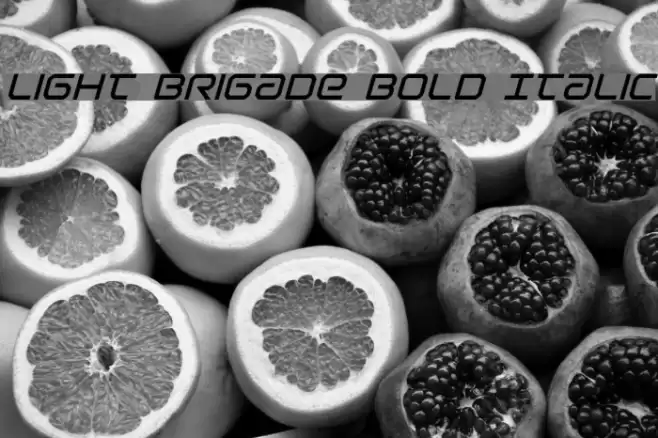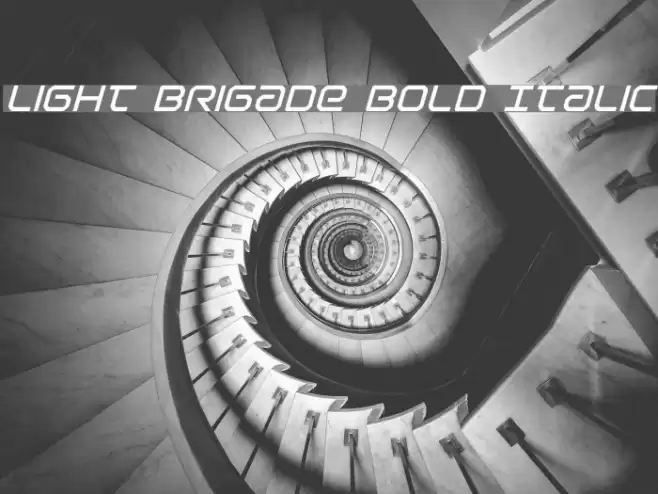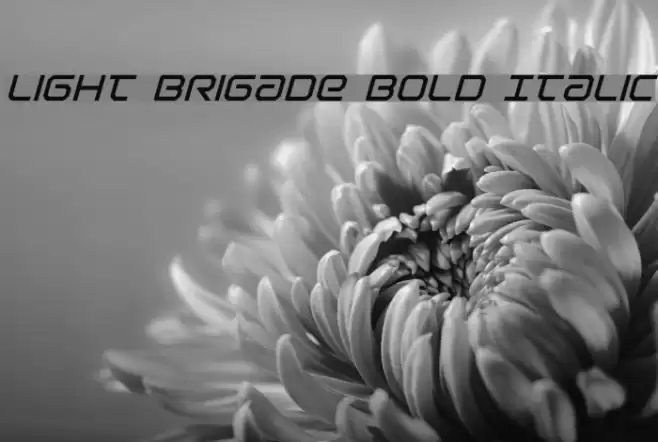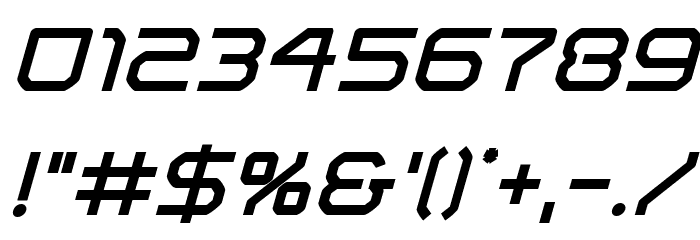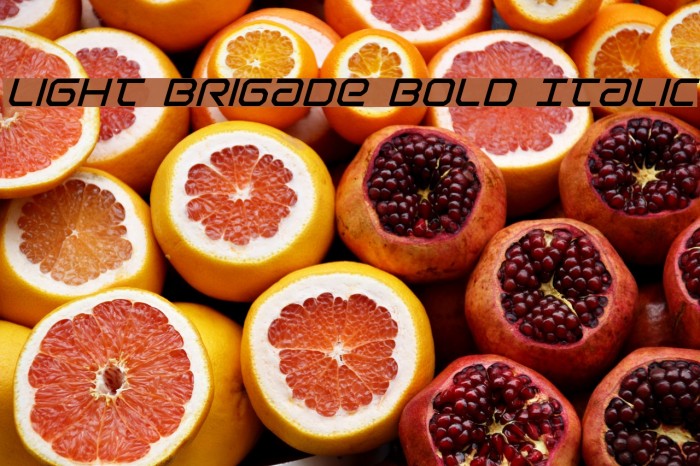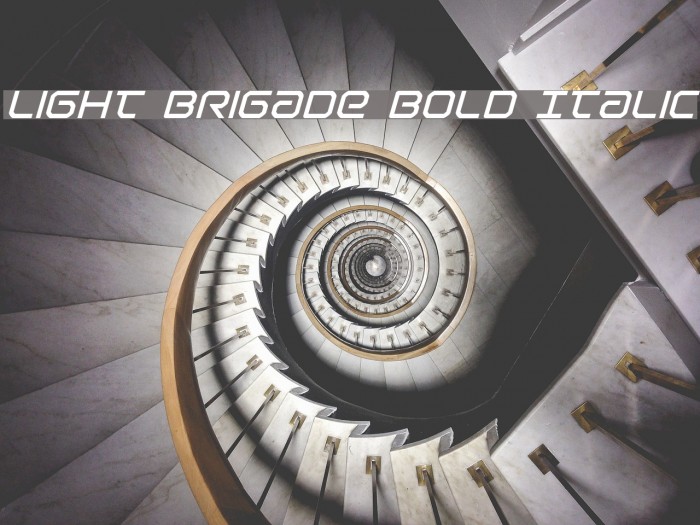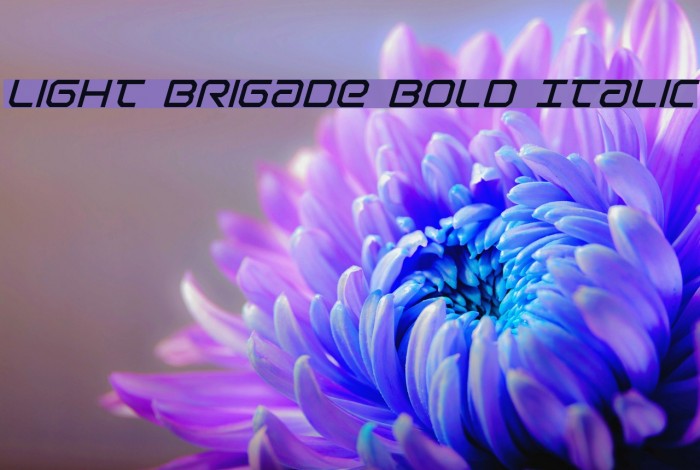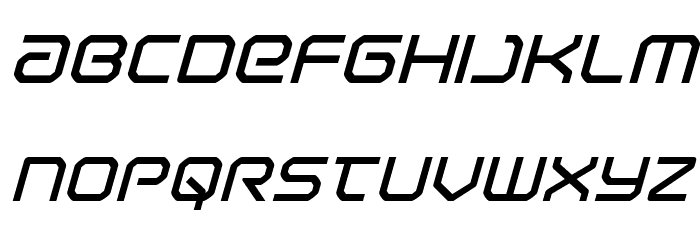
Light Brigade Bold Italic Font
Light Brigade Bold Italic Description
This font features a bold and italicized style with a modern and futuristic appearance. The characters are slightly slanted, giving a sense of motion and dynamism. The design is clean and geometric, with sharp angles and a consistent stroke width that maintains a uniform look across all characters. The numbers and special characters follow the same stylistic cues, ensuring a cohesive appearance. This font is well-suited for projects that require a contemporary and energetic feel, such as technology branding, sports team logos, or dynamic advertising campaigns.
A bold, italicized font with a modern, geometric style from Uncategorized fonts.
- Proposed Projects: Ideal for technology branding, sports logos, and dynamic advertising.
- Use Case: Logos, Headlines